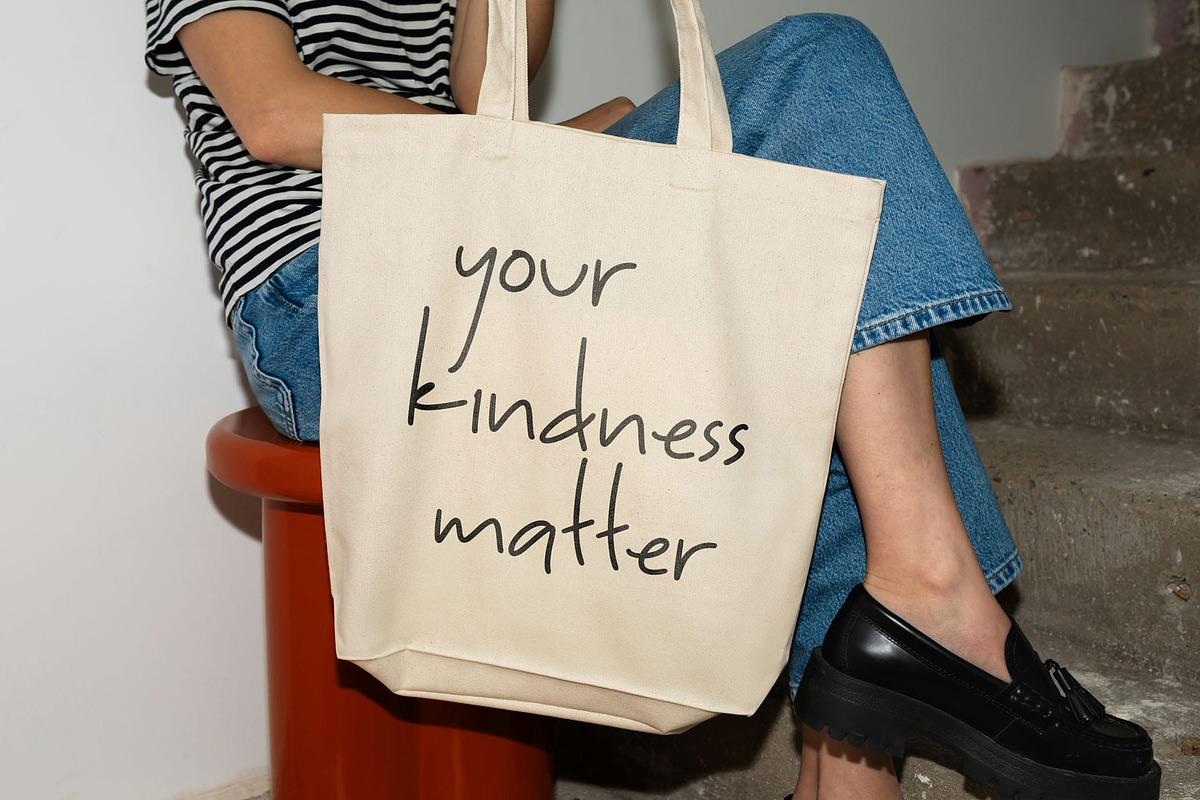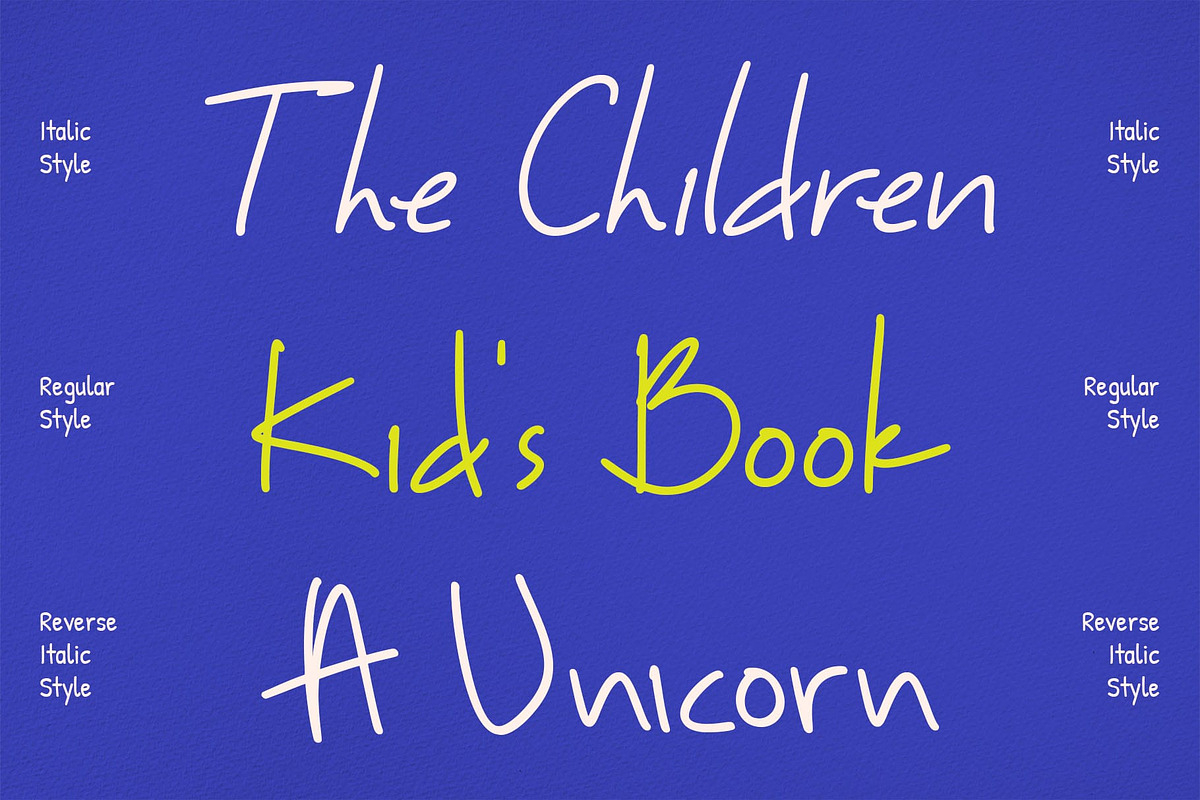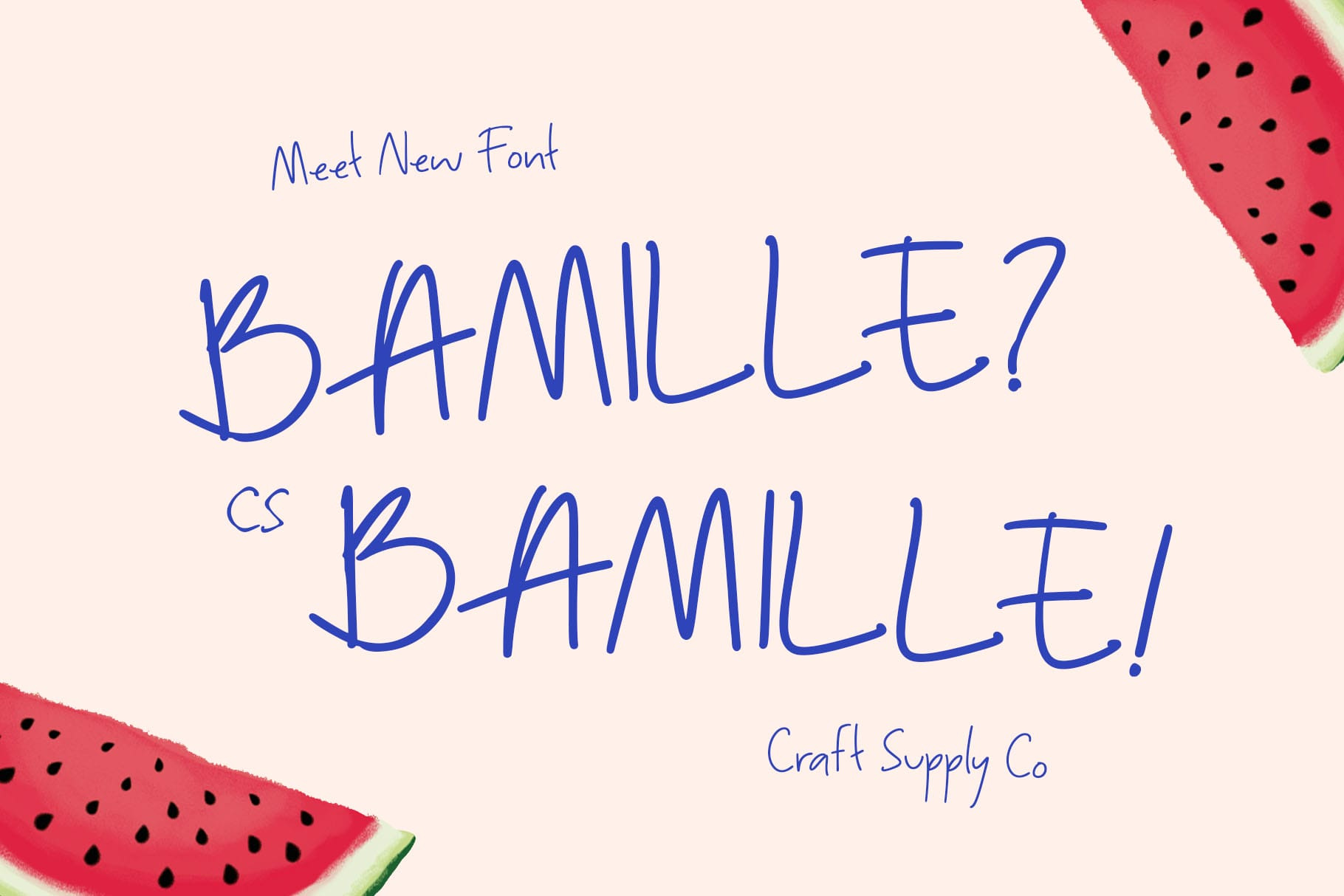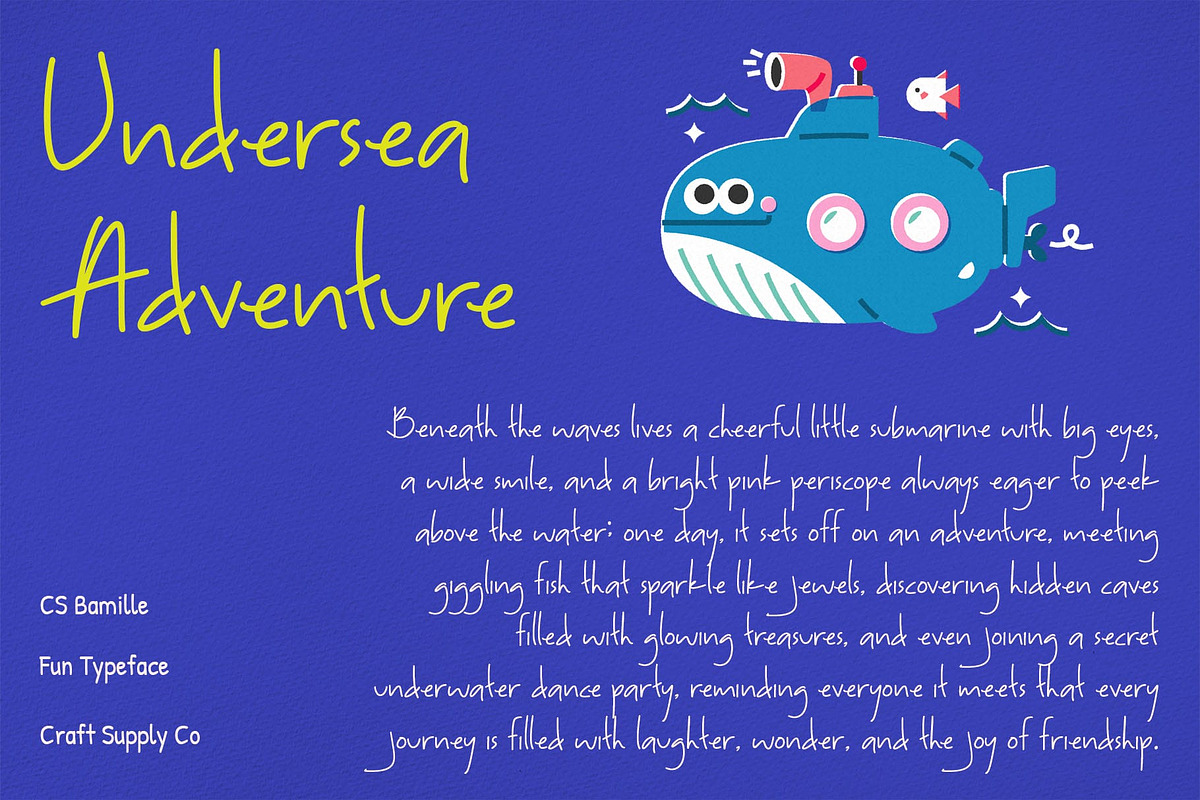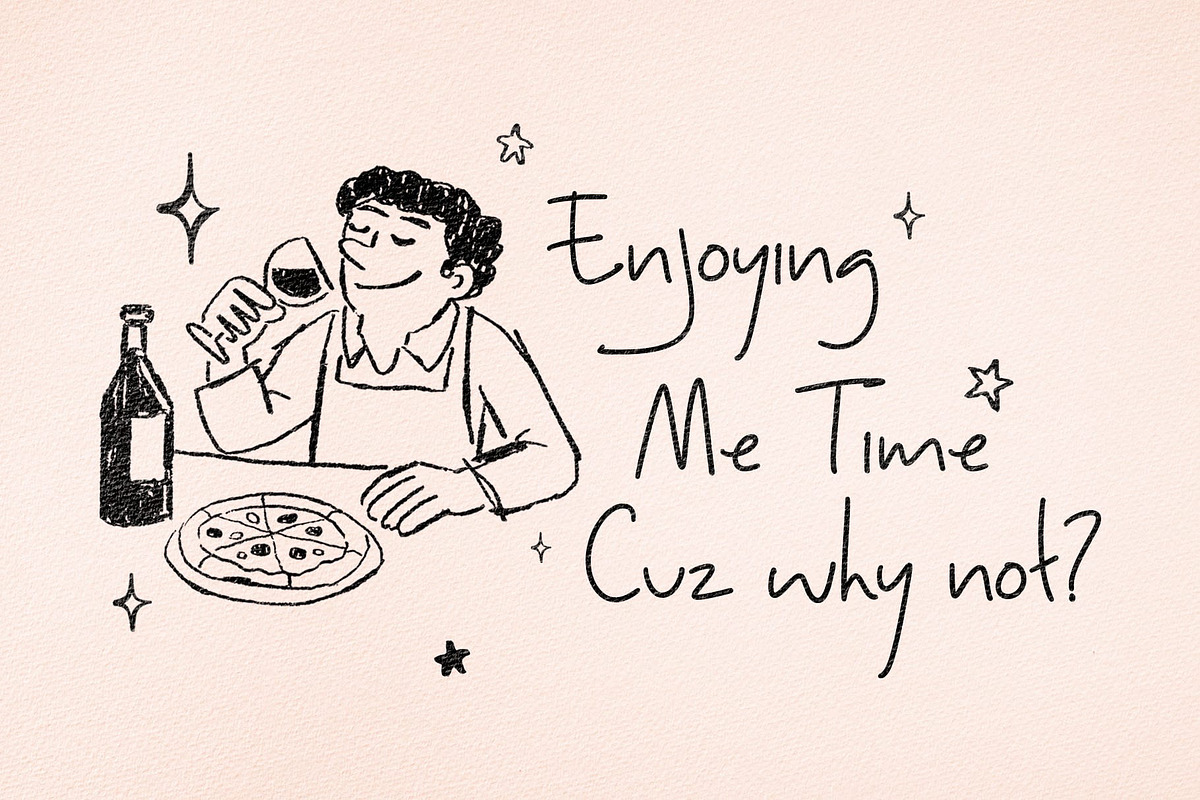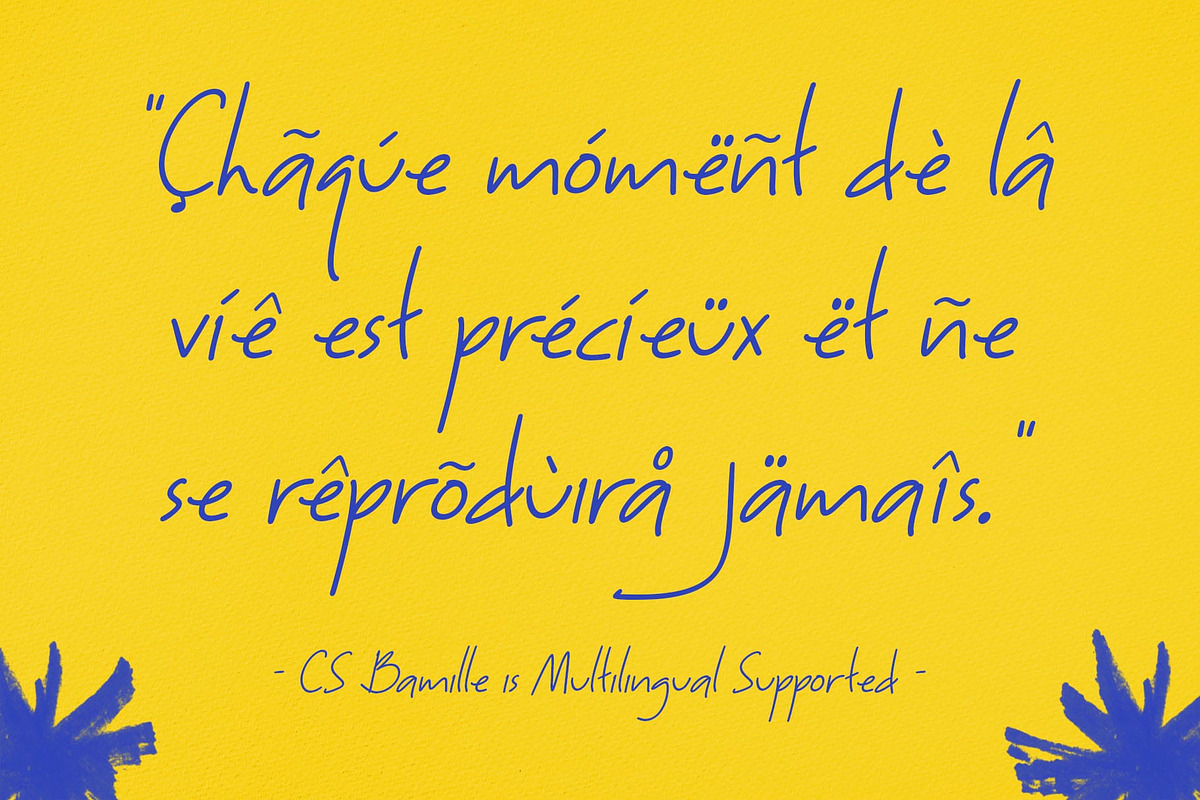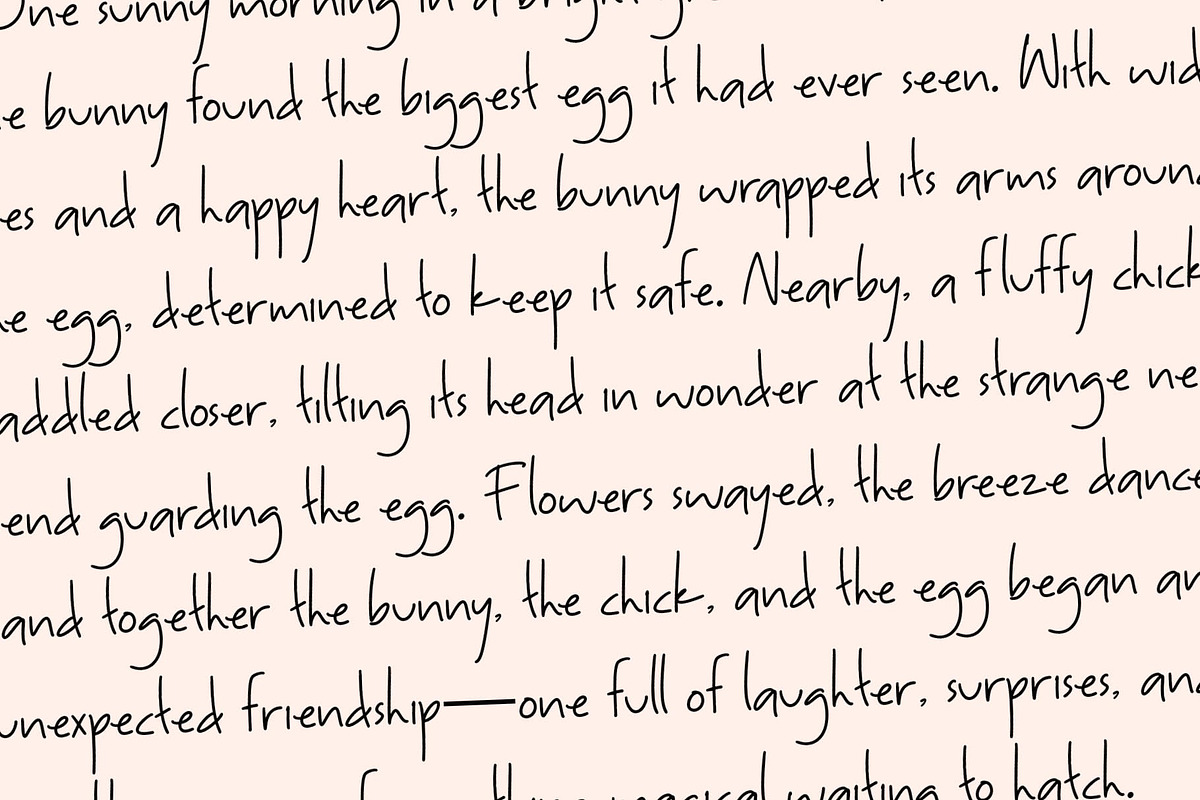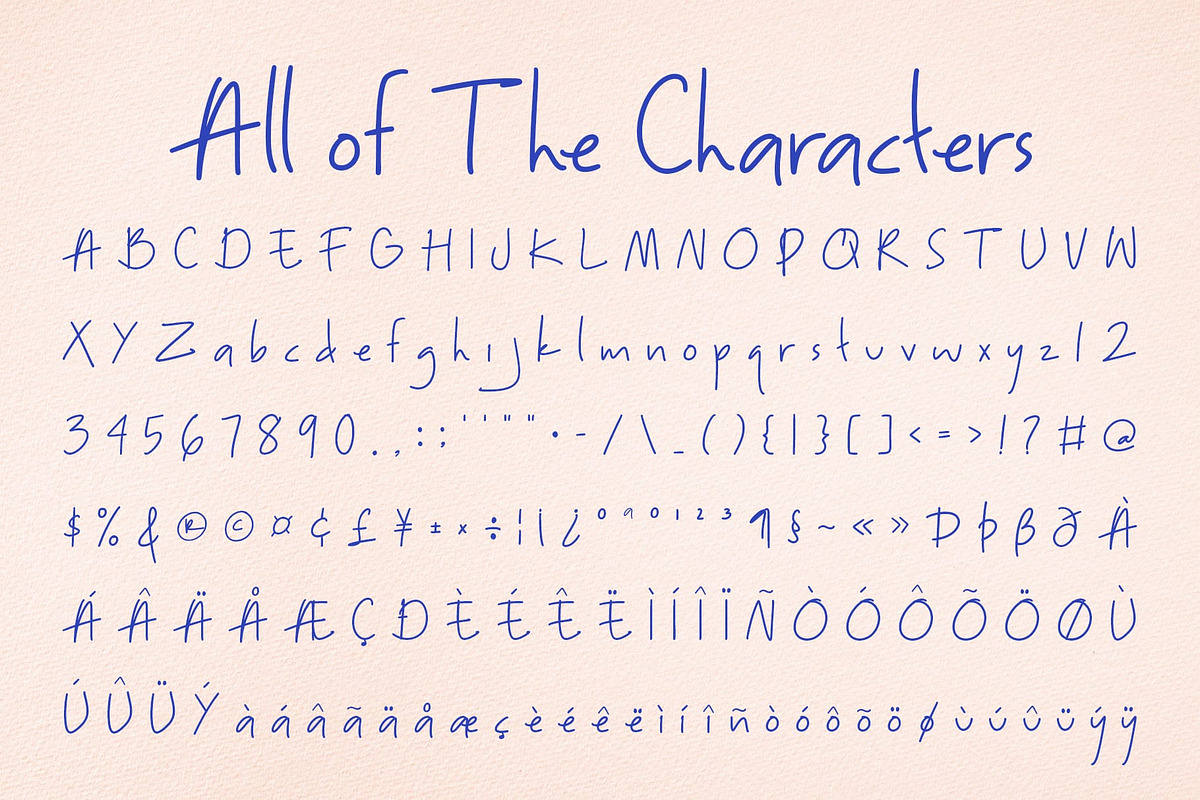
CS Bamille – Handwriting Font
CS Bamille – A Handwriting Font with Warm Authenticity: Expressive Handwriting Font and Natural Strokes
Soft and Expressive Style This is a handwriting font designed to capture the charm of natural pen strokes. Its fluid and organic forms give every letter a sense of softness and authenticity, making it an excellent choice for projects that need a personal, human touch.
Authenticity in Every Curve With its handwritten sans serif characters, this font conveys warmth and sincerity. Each curve feels natural and unforced, adding personality and depth to text. Whether used in branding, casual designs, or personal projects, it creates a voice that feels approachable and relatable.
Perfect for Personal Branding and Quotes This font shines in personal branding, where expressing individuality is key. It also enhances inspirational quotes, social media graphics, and lifestyle content, ensuring that messages feel genuine and emotionally resonant.
Versatile for Invitations and Casual Designs this font works beautifully in casual invitations, greeting cards, or creative layouts. Its versatile design adapts to both print and digital formats, delivering a consistently friendly and stylish look across different media.
- CS Bamille Regular
- CS Bamille Italic
- CS Bamille Reverse Italic